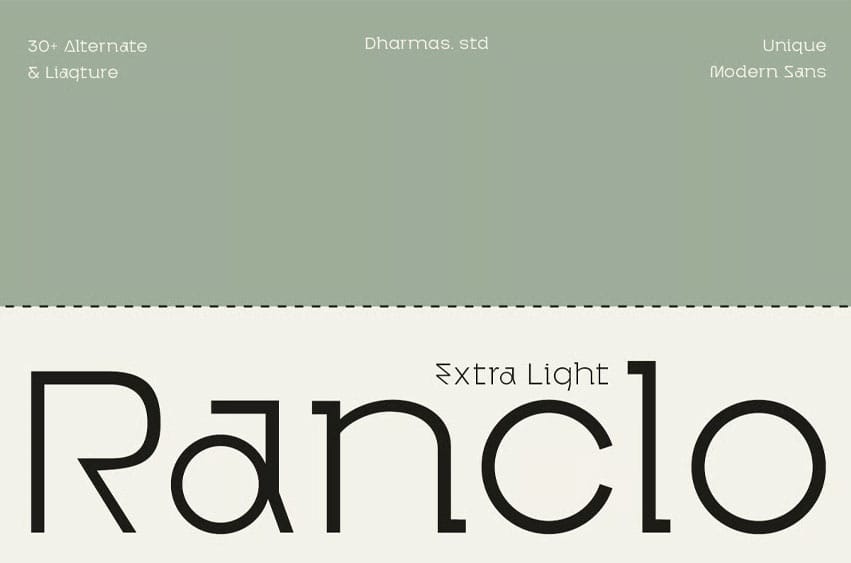
Ranclo Extra Light Font is a typeface designed for high-end branding and professional design projects. This font blends contemporary minimalism with timeless elegance—perfect for businesses that demand a polished and sophisticated presence.
This version features the Extra Light style, offering an elegant. Ranclo Extra Light brings a graceful and modern touch to any visual identity, combining subtlety with clarity.
Packed with 32 unique alternates and ligatures, this font gives designers room to explore stylish variations and create truly custom typography. Whether you’re designing a refined logo, elegant title, or upscale marketing asset, Ranclo Extra Light delivers understated beauty with precision.
Font Features:
- 1 Weight: Extra Light
- 32+ Alternates & Ligatures for creative flexibility
- OpenType Features: Advanced typographic options
- Multilingual Support: Covers multiple global languages
- PUA Encoded Characters, fully accessible without additional design software